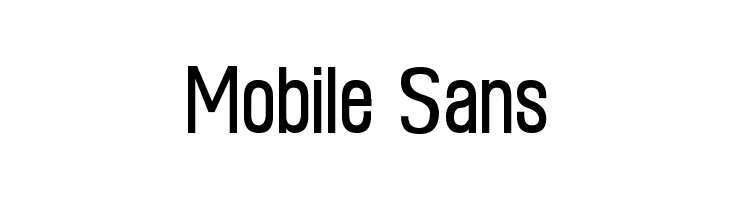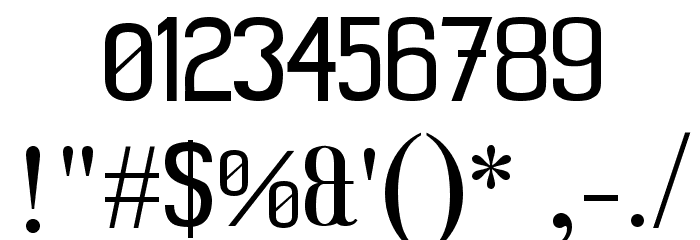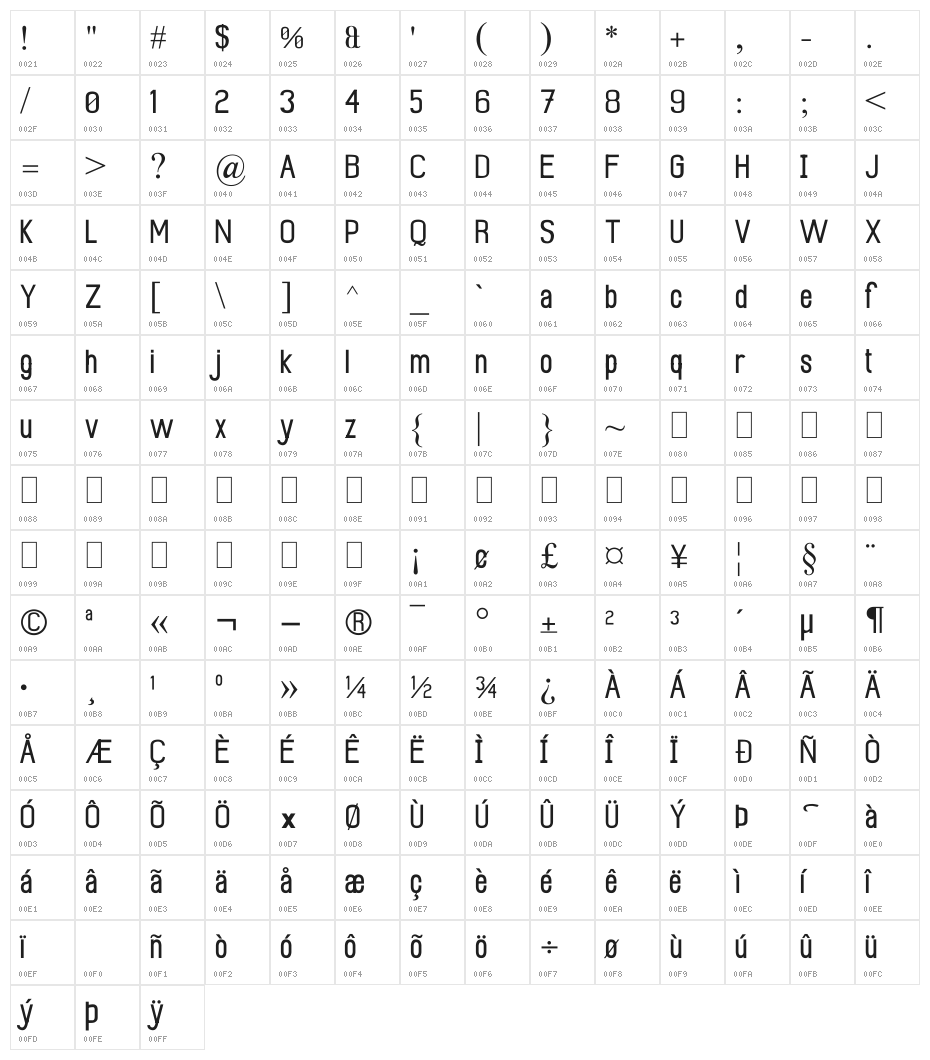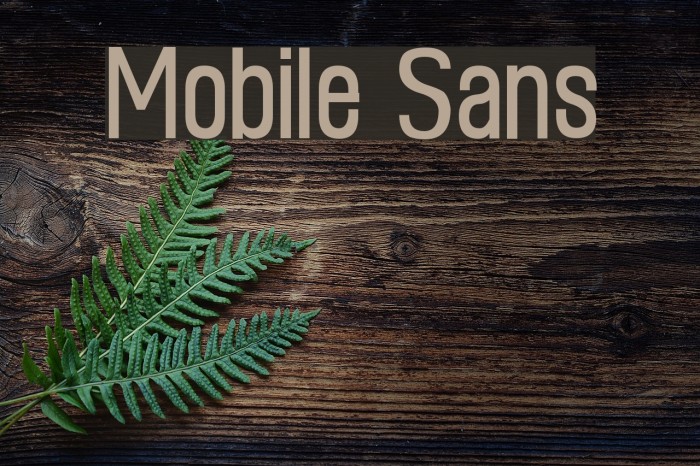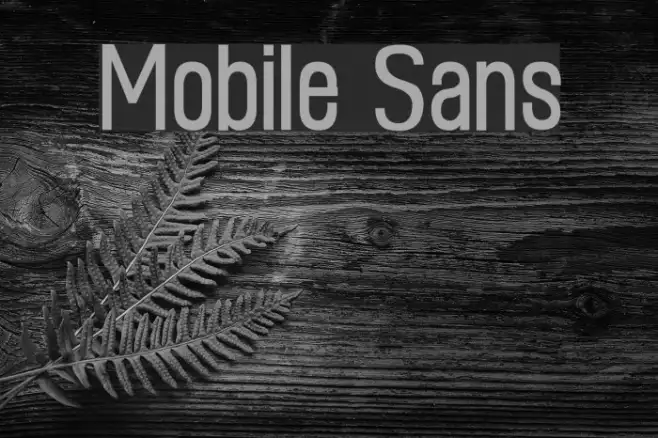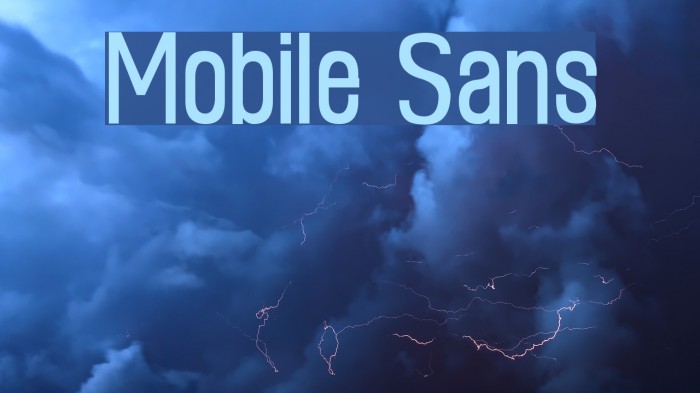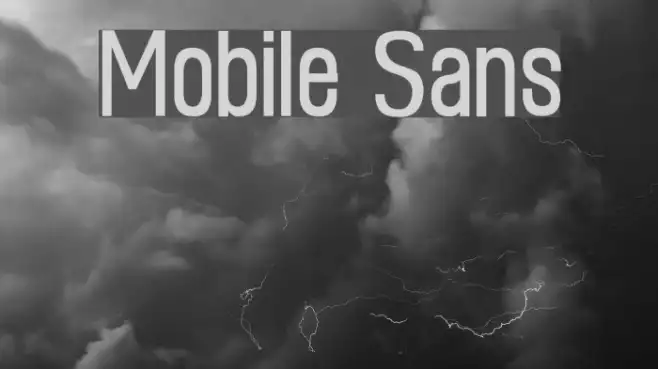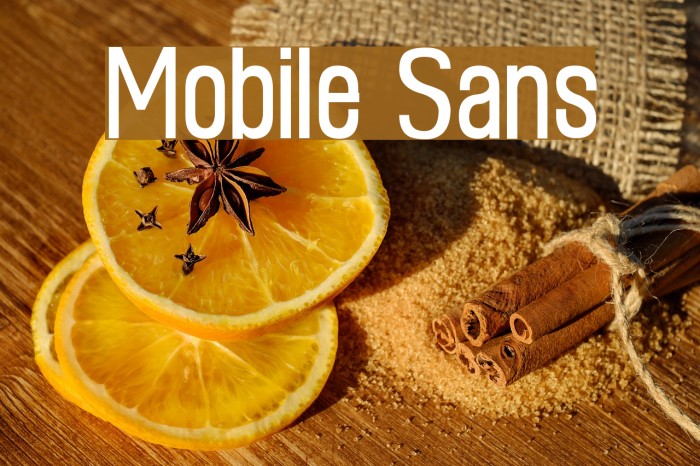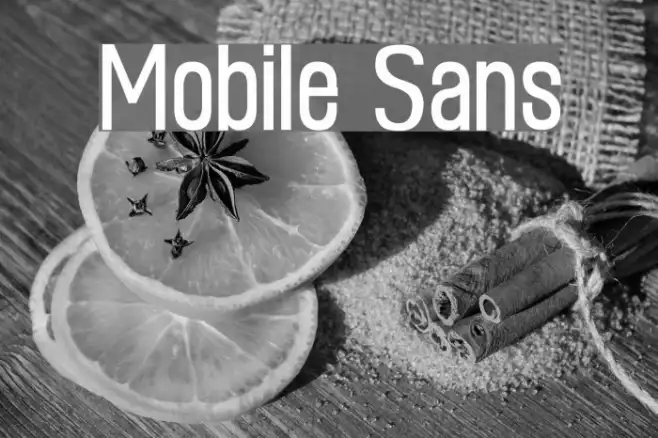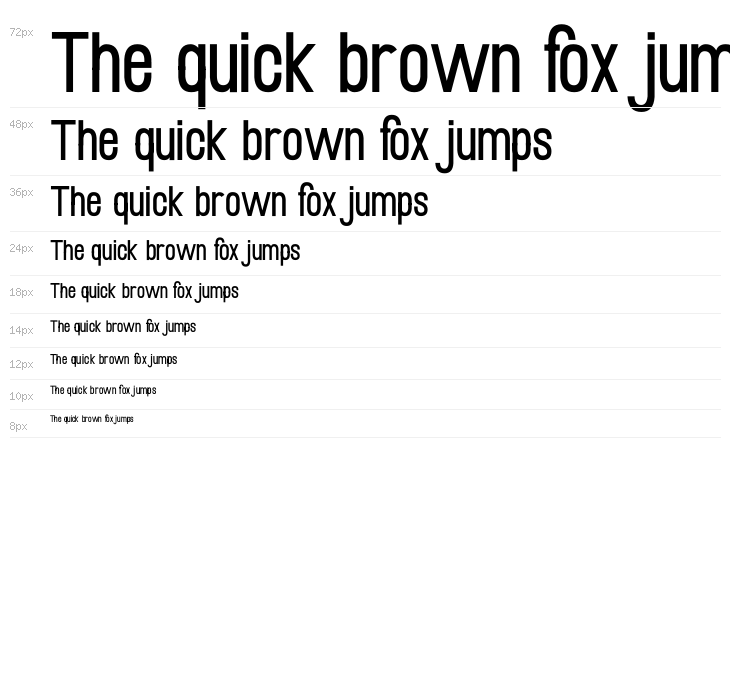
Mobile Sans Font
Mobile Sans Description
This font features a clean and modern sans-serif design with a geometric structure. The characters are uniform in width, providing a balanced and harmonious appearance. The uppercase letters are bold and assertive, while the lowercase letters maintain a consistent height, enhancing readability. The numerals are clear and distinct, making them suitable for various applications. Special characters are well-defined, adding versatility to the font. The overall style is contemporary, making it ideal for digital and print media.